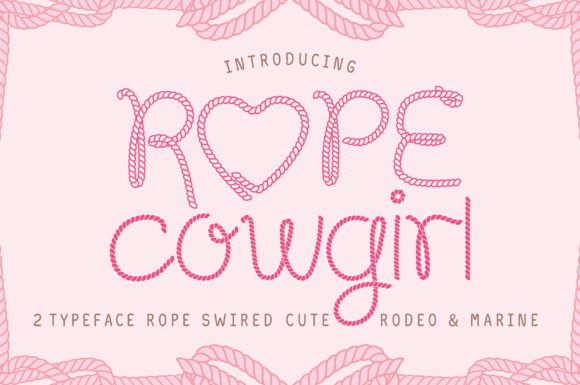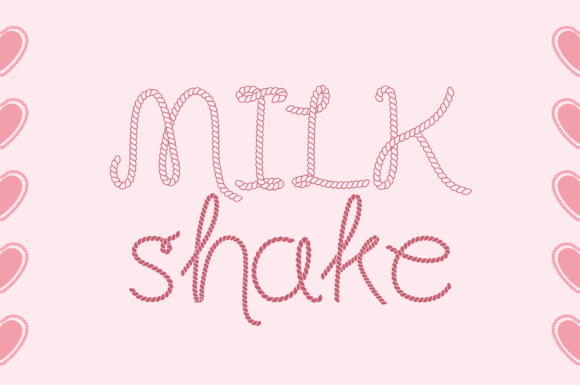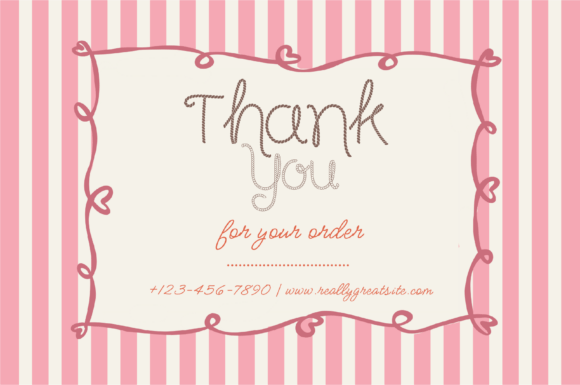
Rope Cowgirl Font
Introducing Rope Cowgirl – a unique font that masterfully embodies the rugged cowboy theme. It’s meticulously crafted to resemble a genuine rope, full of twists and naturally inspired designs. This font is highly versatile and beautifully complements Texas, marine, and circus themes, among others. It’s a universal favorite for eye-catching invitation card designs, imbuing school sheets with a fun twist, or adding a distinctive character to mugs and shirts. Experience the creative potential that oozes from every curve and swirl of Rope Cowgirl.